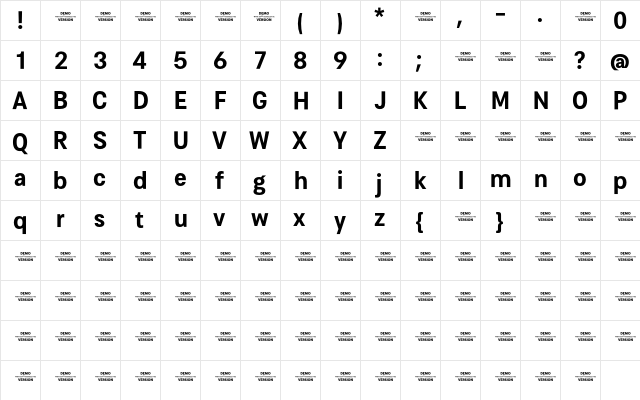
Cosima Demo Bold
Design Context for Cosima Typeface
Cosima takes a measured approach to typography — its balanced proportions and neutral character make it a reliable workhorse for both digital and print work. The heavy weight commands attention and anchors typographic hierarchies.